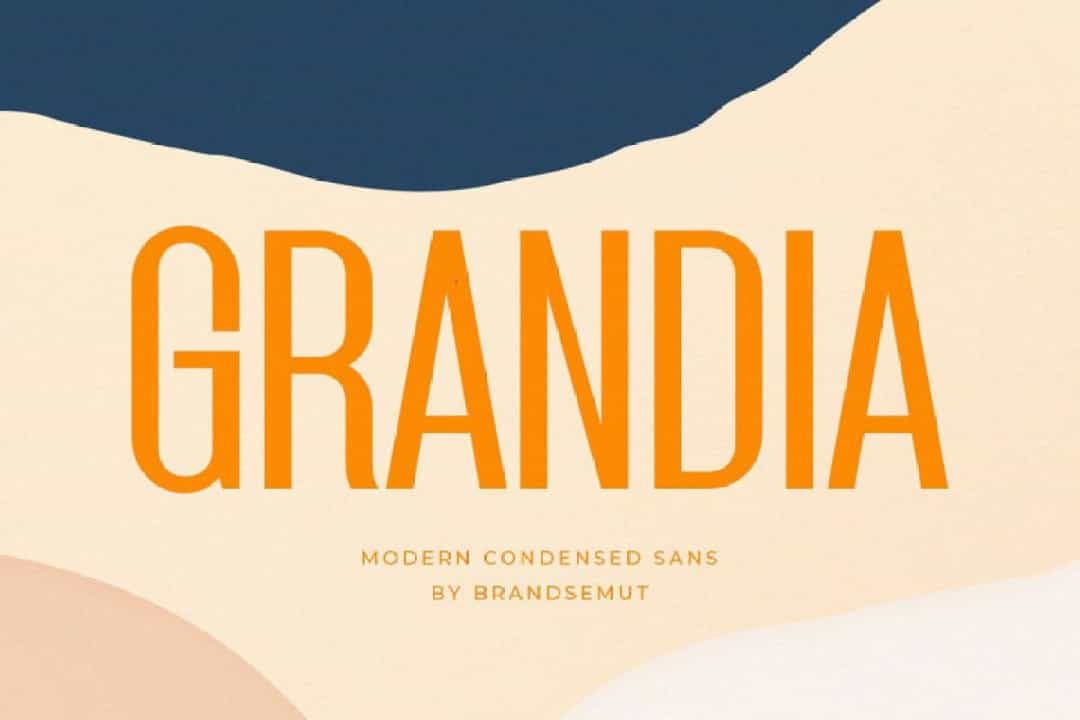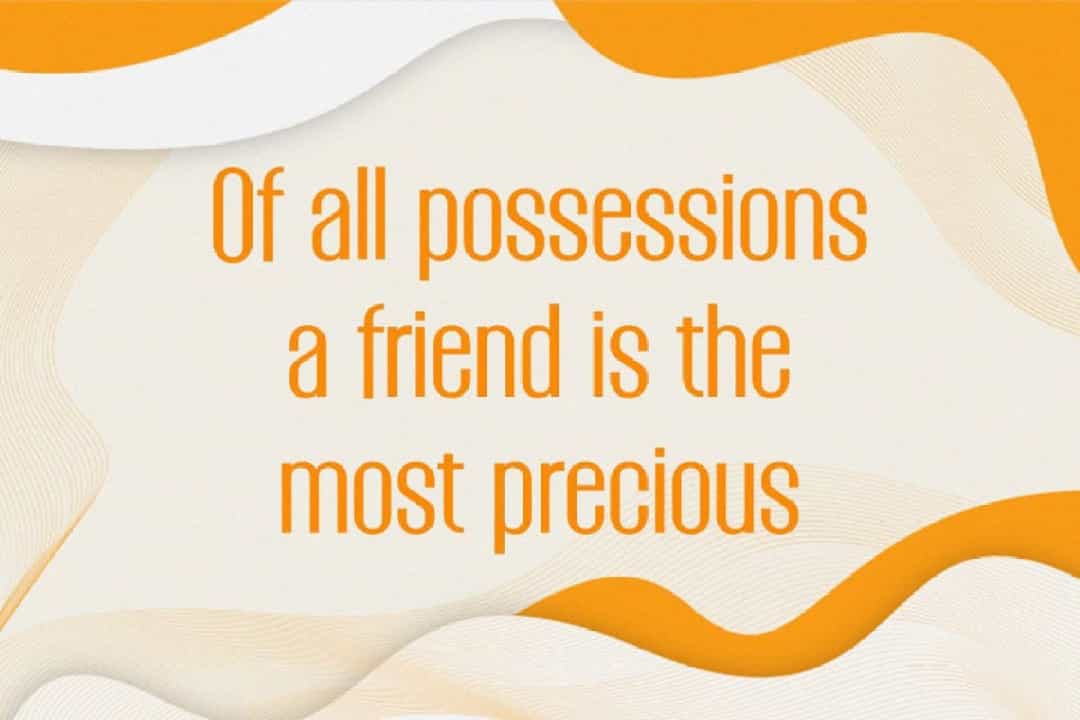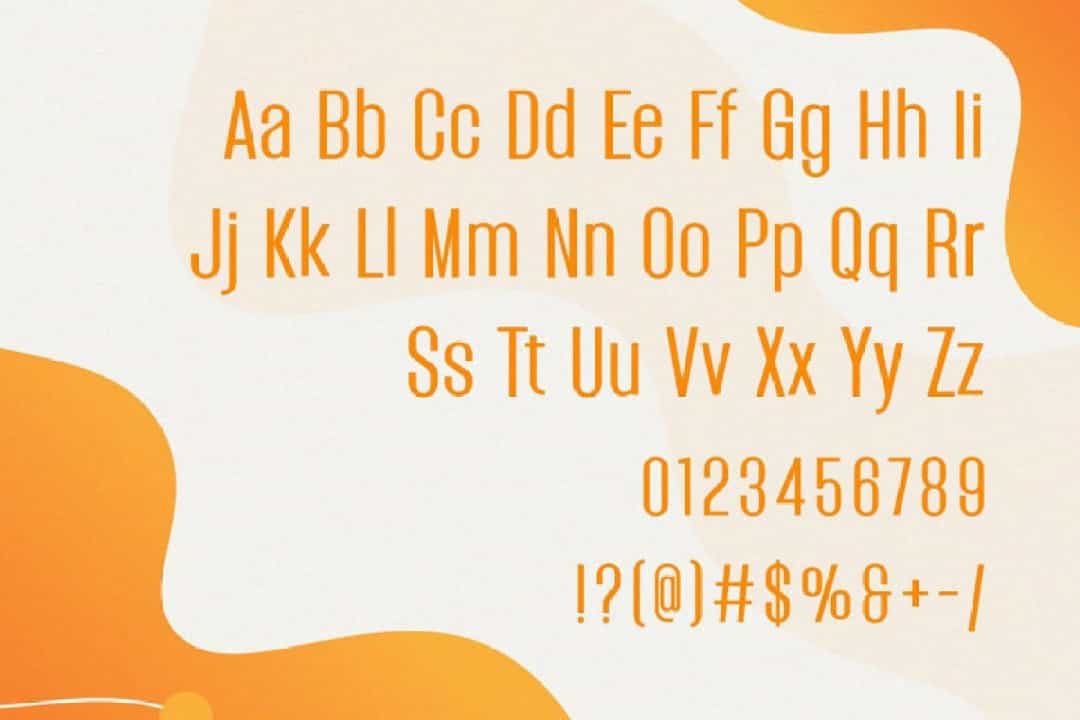
Grandia is an elegant sans typeface perfect for headings and logos, magazine covers, packaging for products or invitations. Featuring sleek curvatures and straight lines that lend each project an air of elegance.